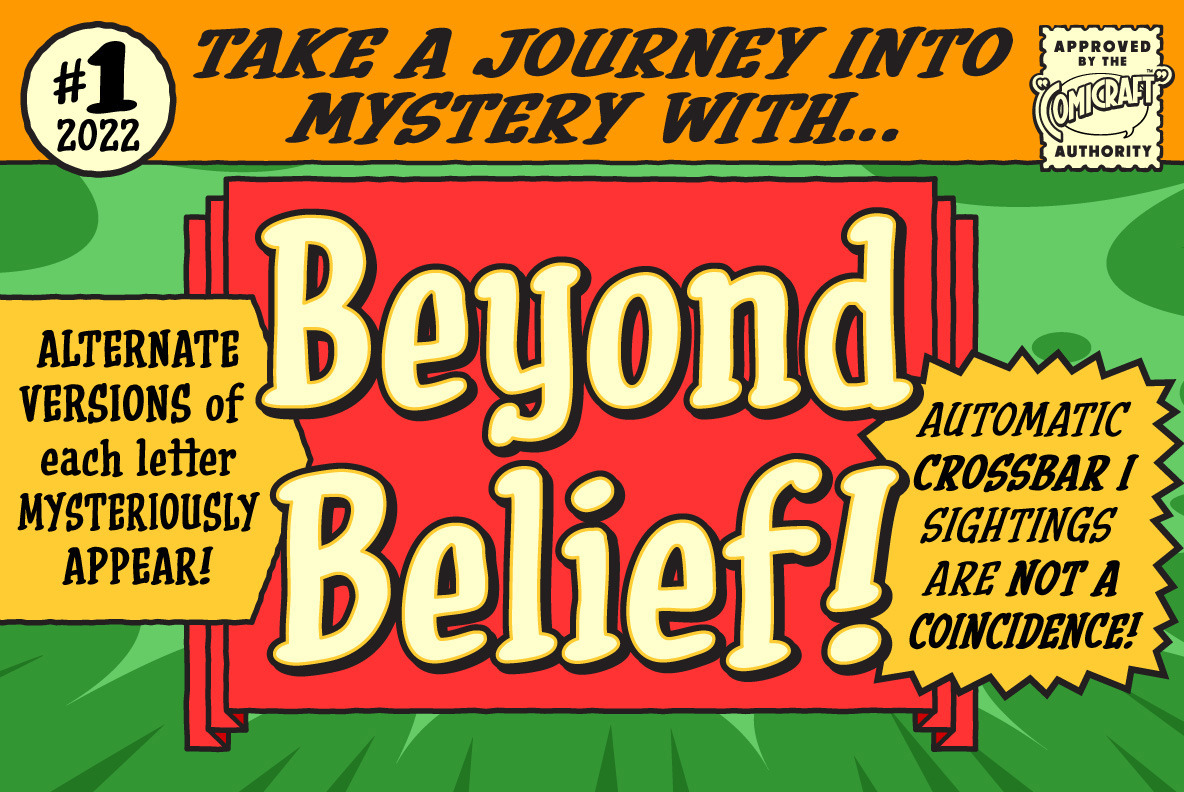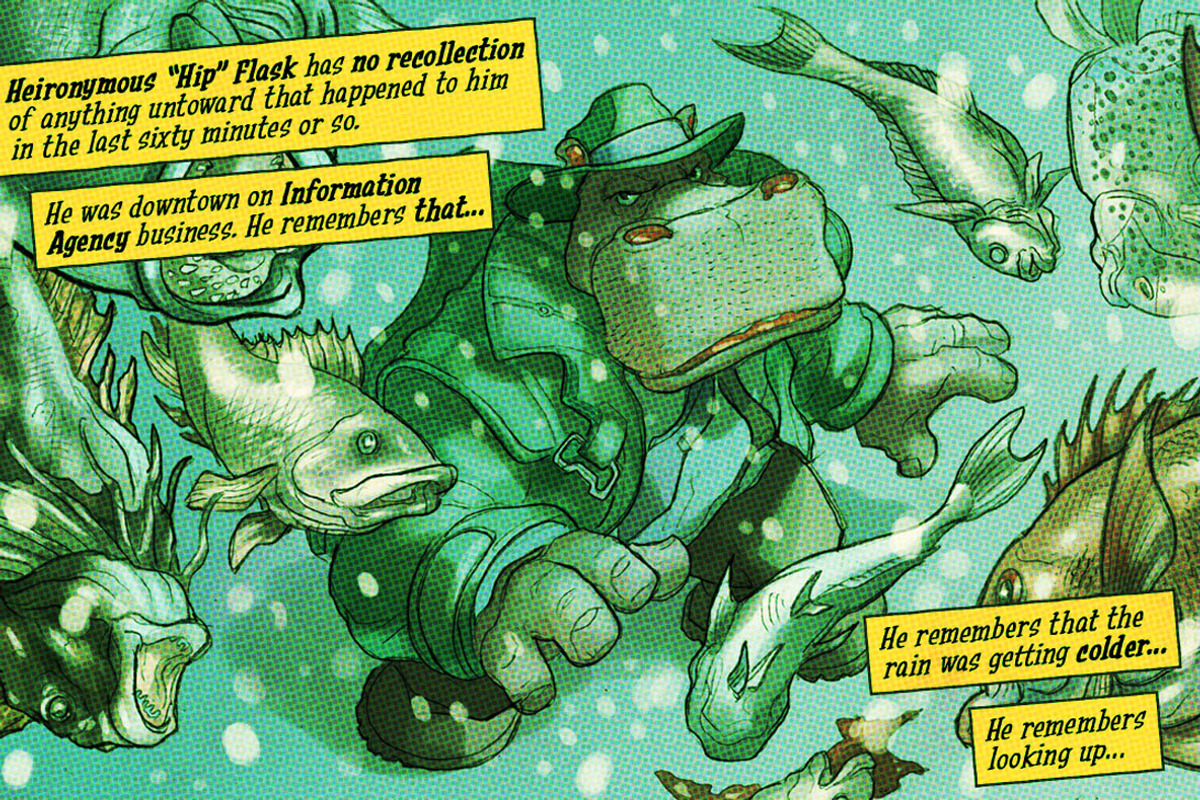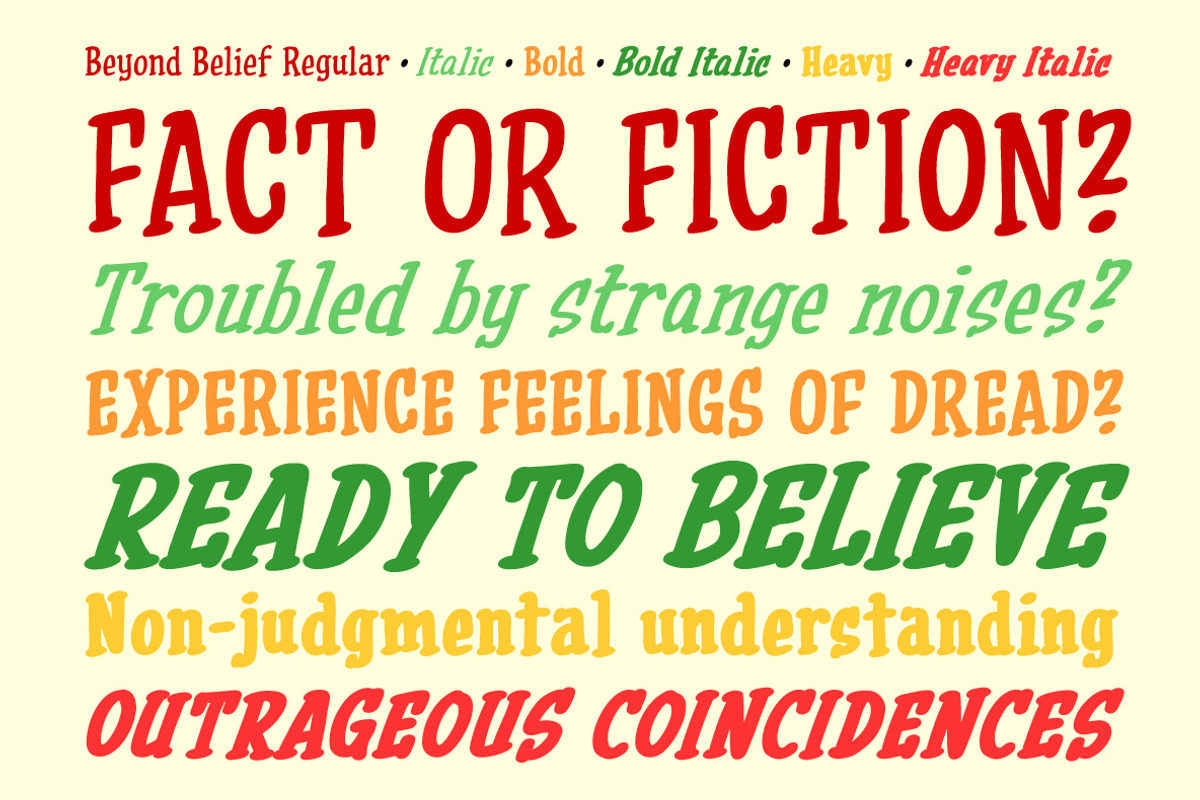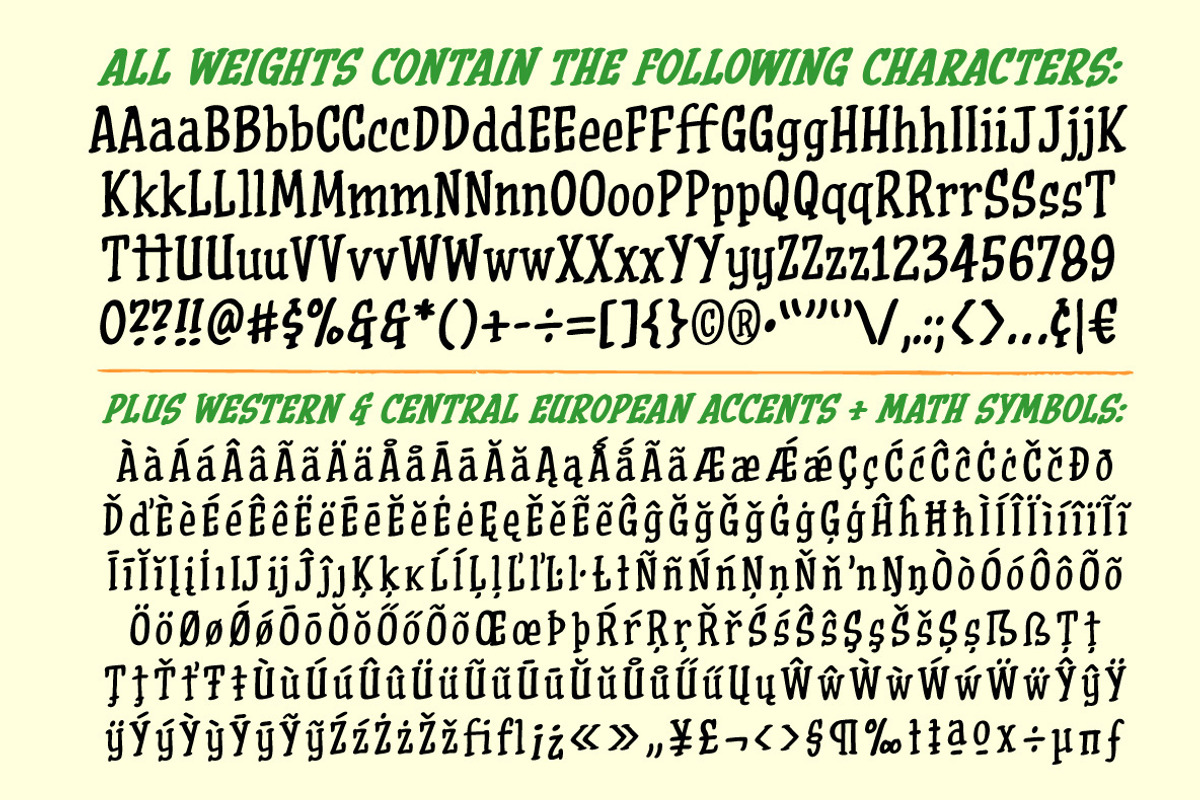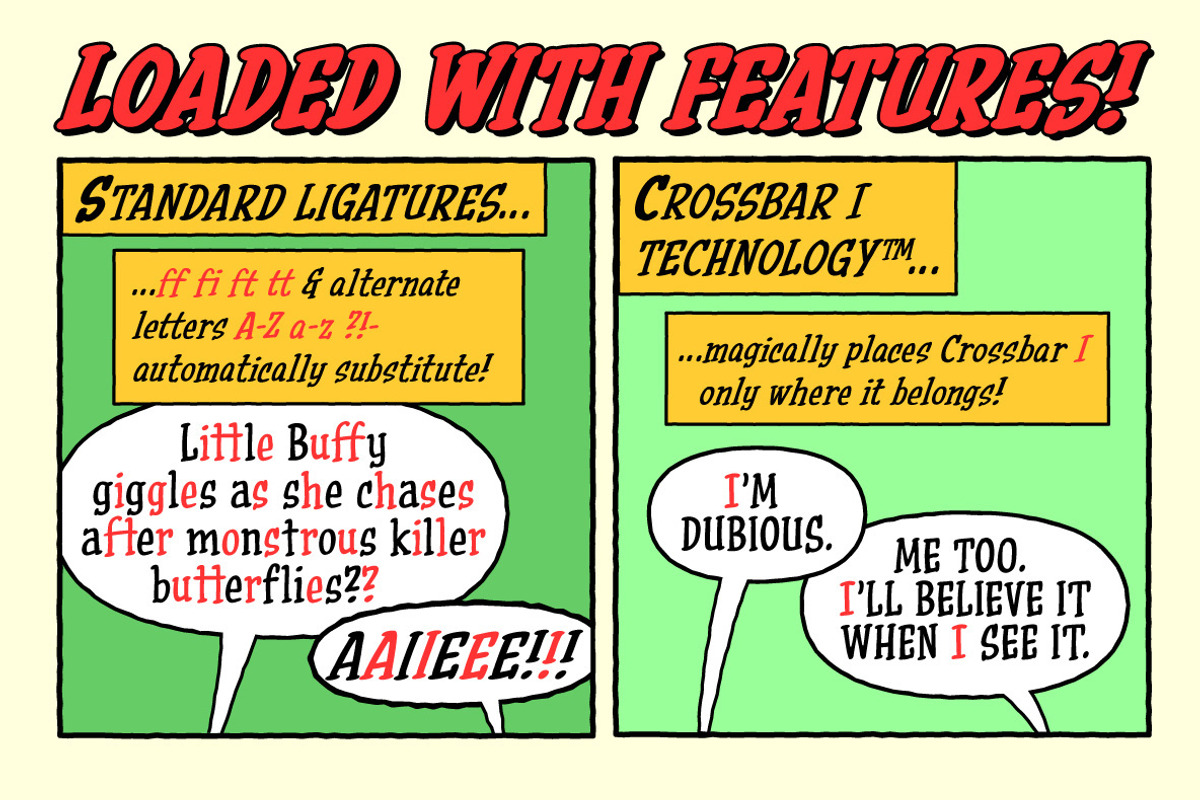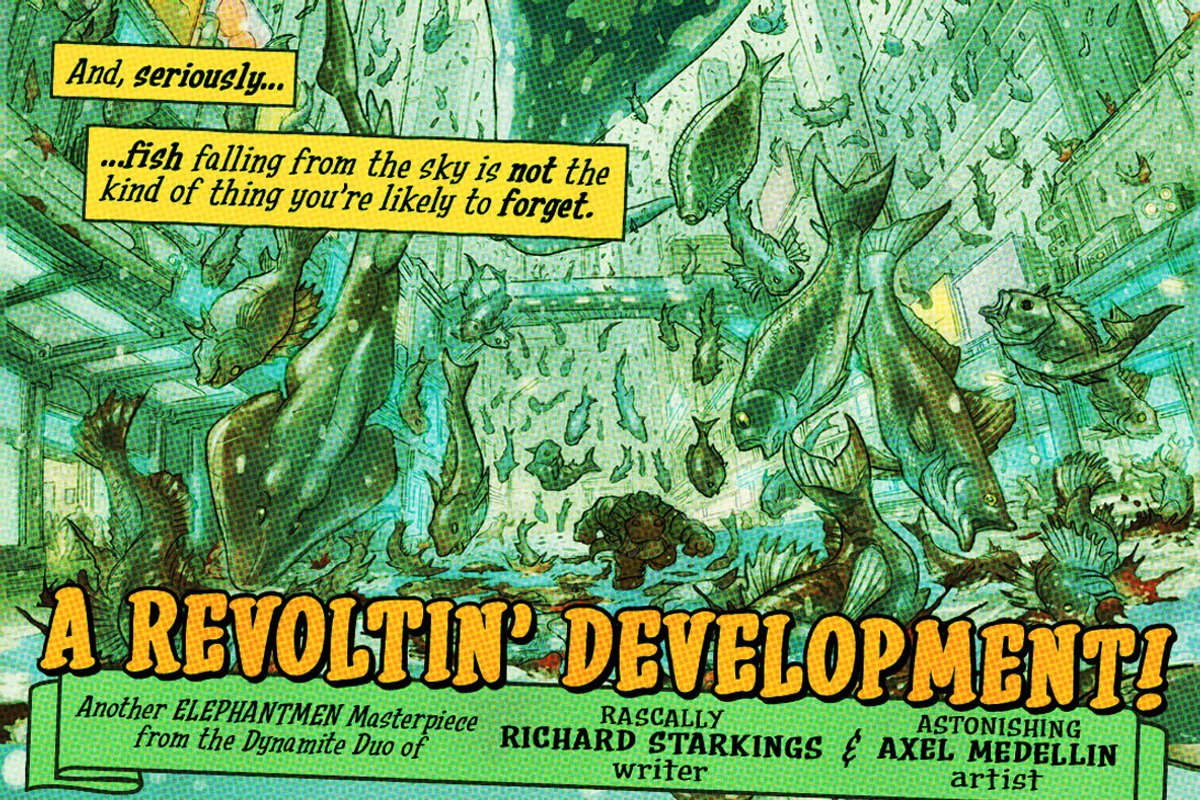
Beyond Belief hand drawn serif font
Fact or Fiction? Are you troubled by strange noises in your font folder? Do you experience feelings of dread in Illustrator, Photoshop or Procreate? Have you or any of your family ever been haunted by an ampersand, cedilla or tilde?
If the answer is yes, please don’t wait another minute. BEYOND BELIEF is ready to Believe YOU! Six weights of non-judgmental understanding and faith in everything you have to say -- even the most outrageous font conflicts and naming “coincidences”.
Beyond Belief features automatically cycling alternate letters, Crossbar I Technology and Western & Central European language support.